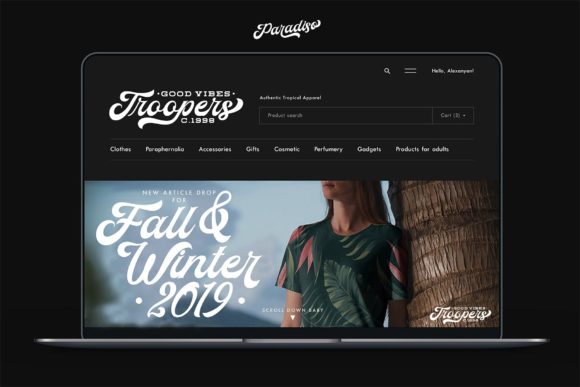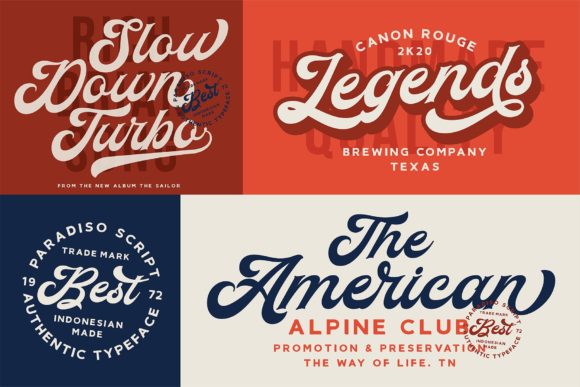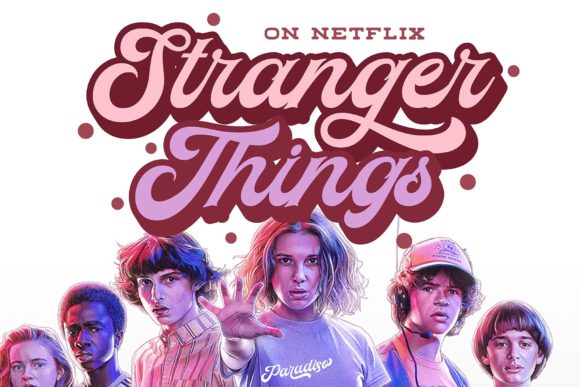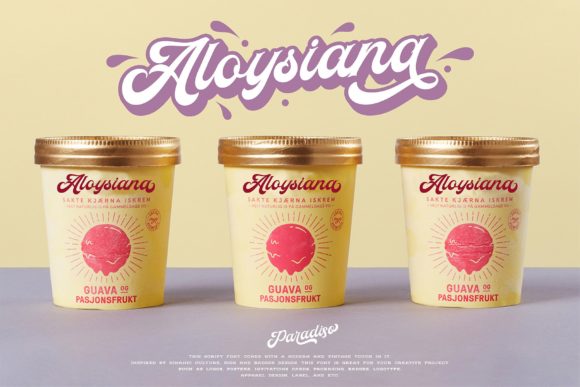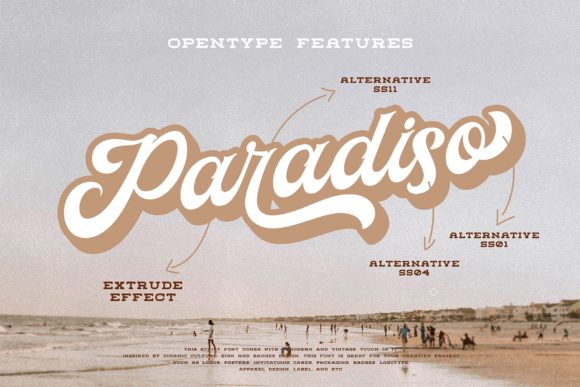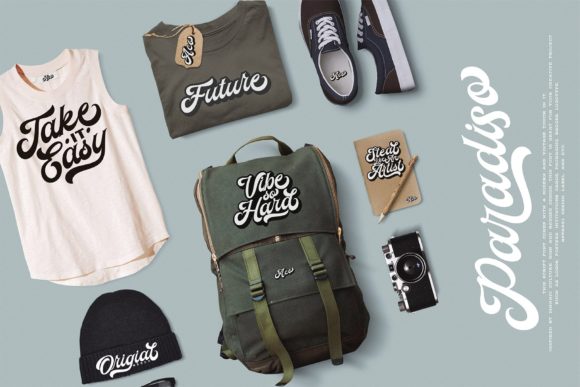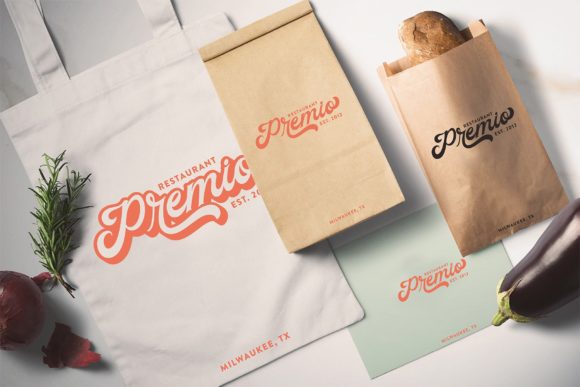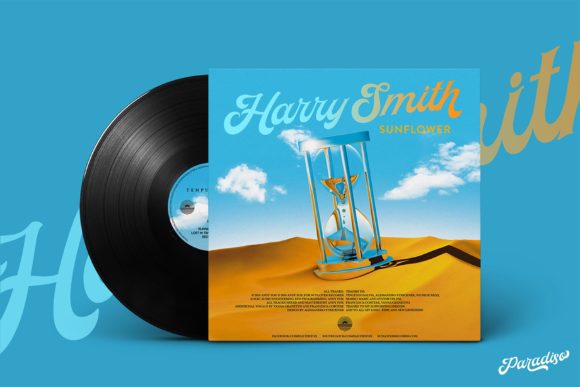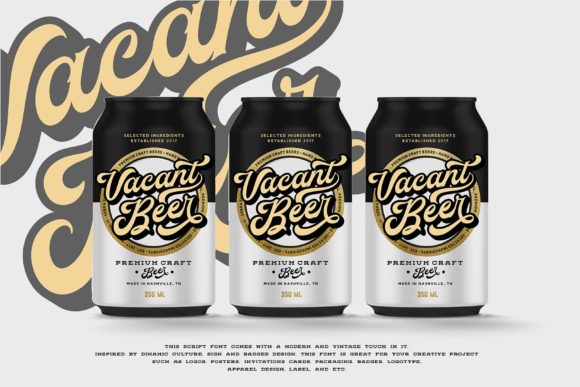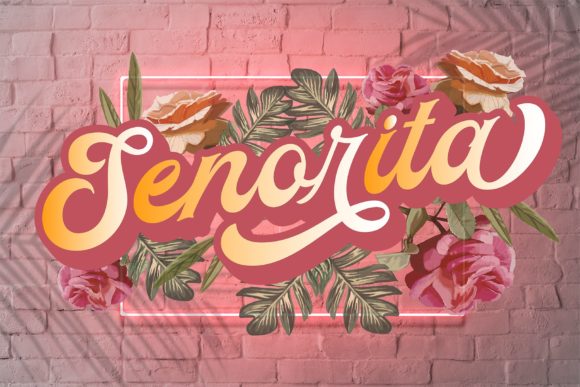
Paradiso Font
About Paradiso Font
Paradiso is a gorgeous script with a playfully nostalgic feel. Use it to turn any design project into a true standout!